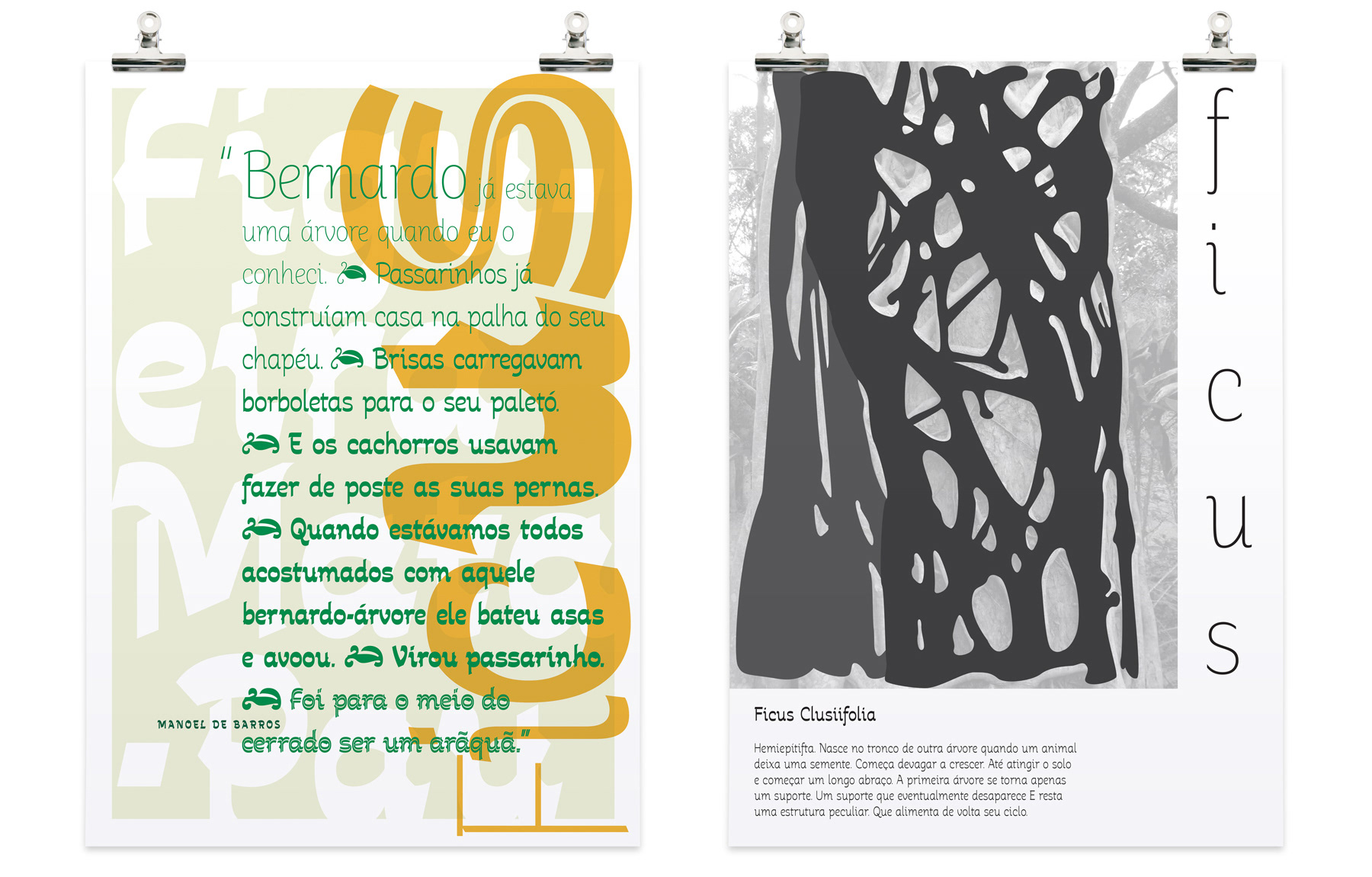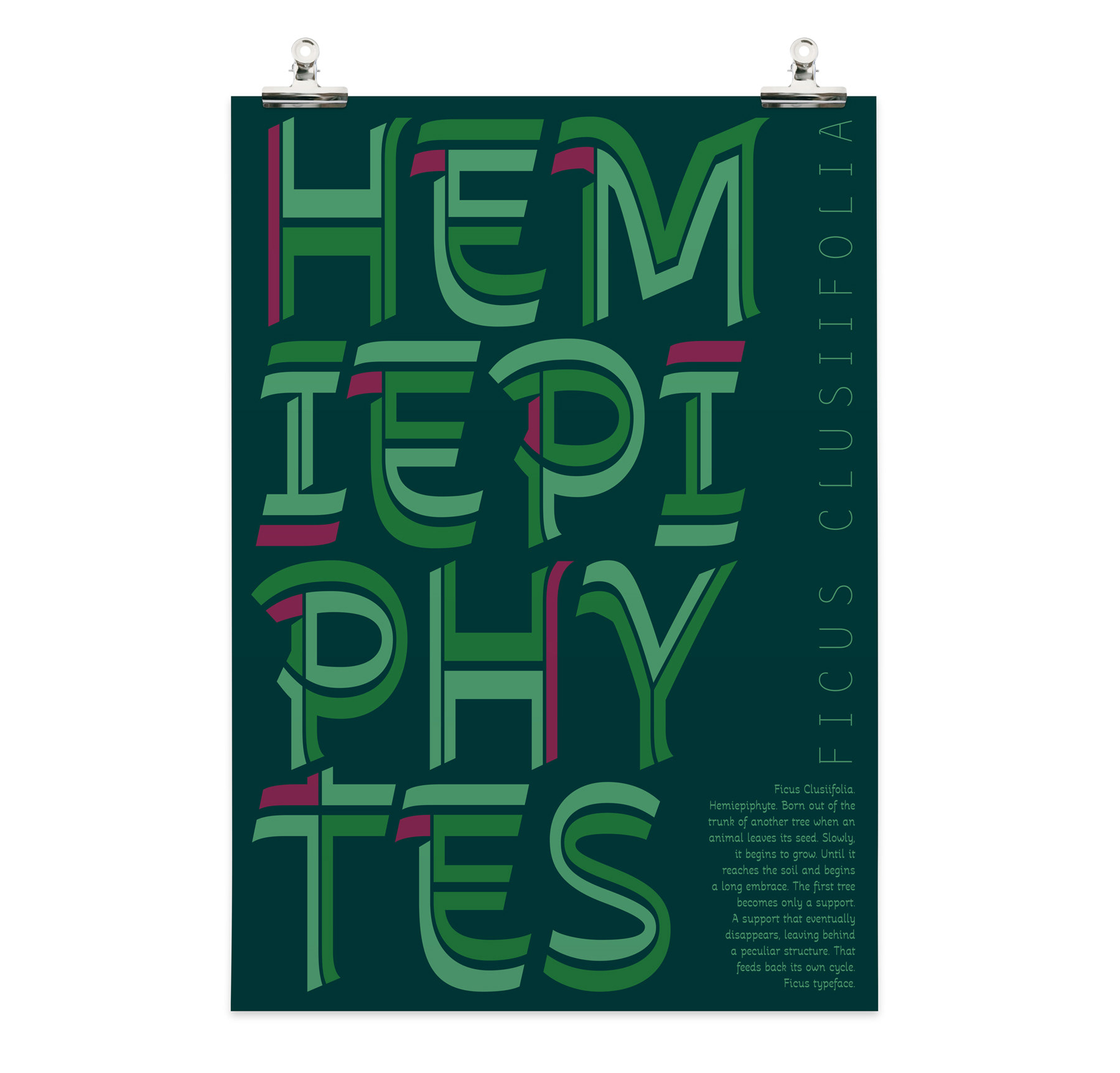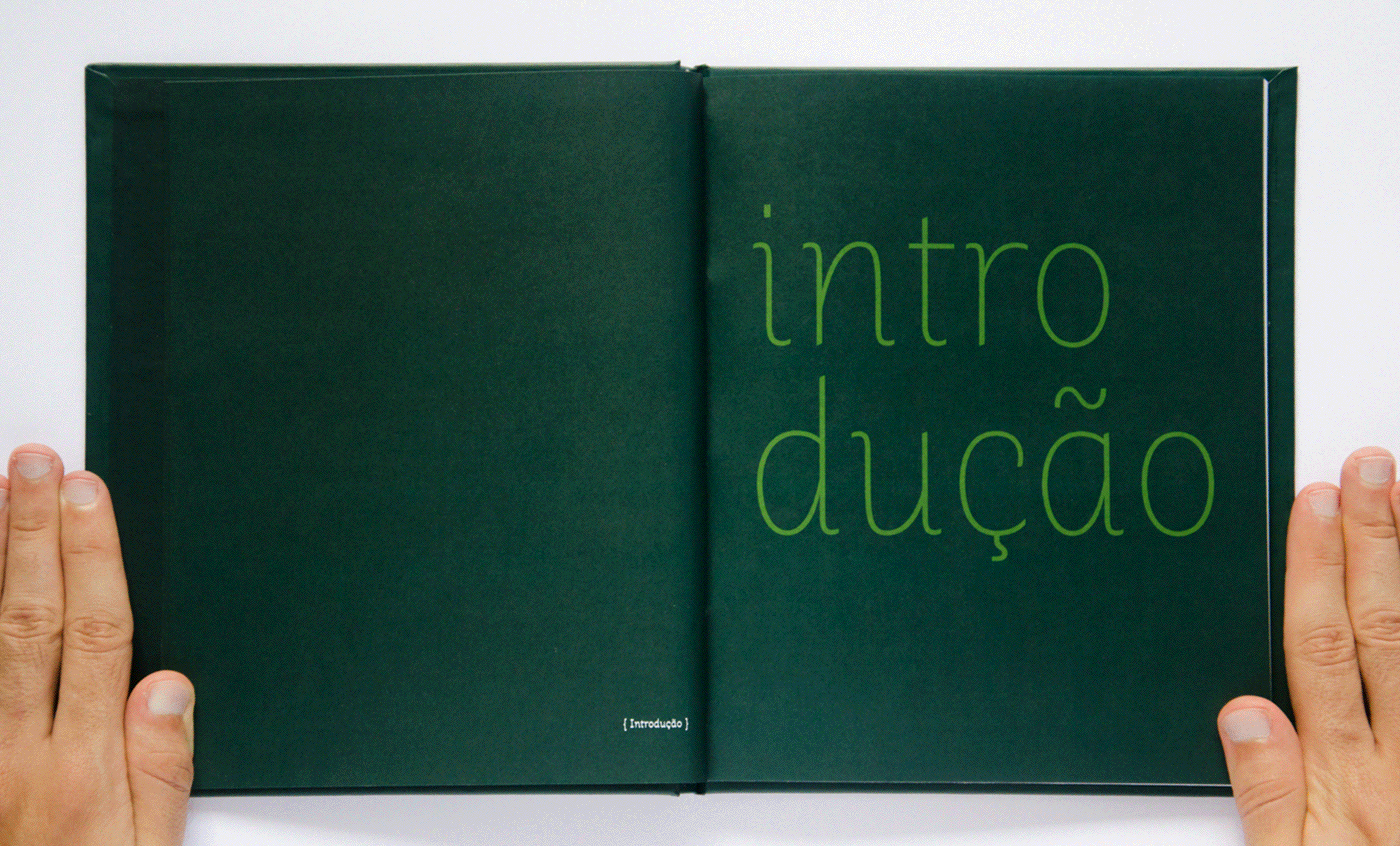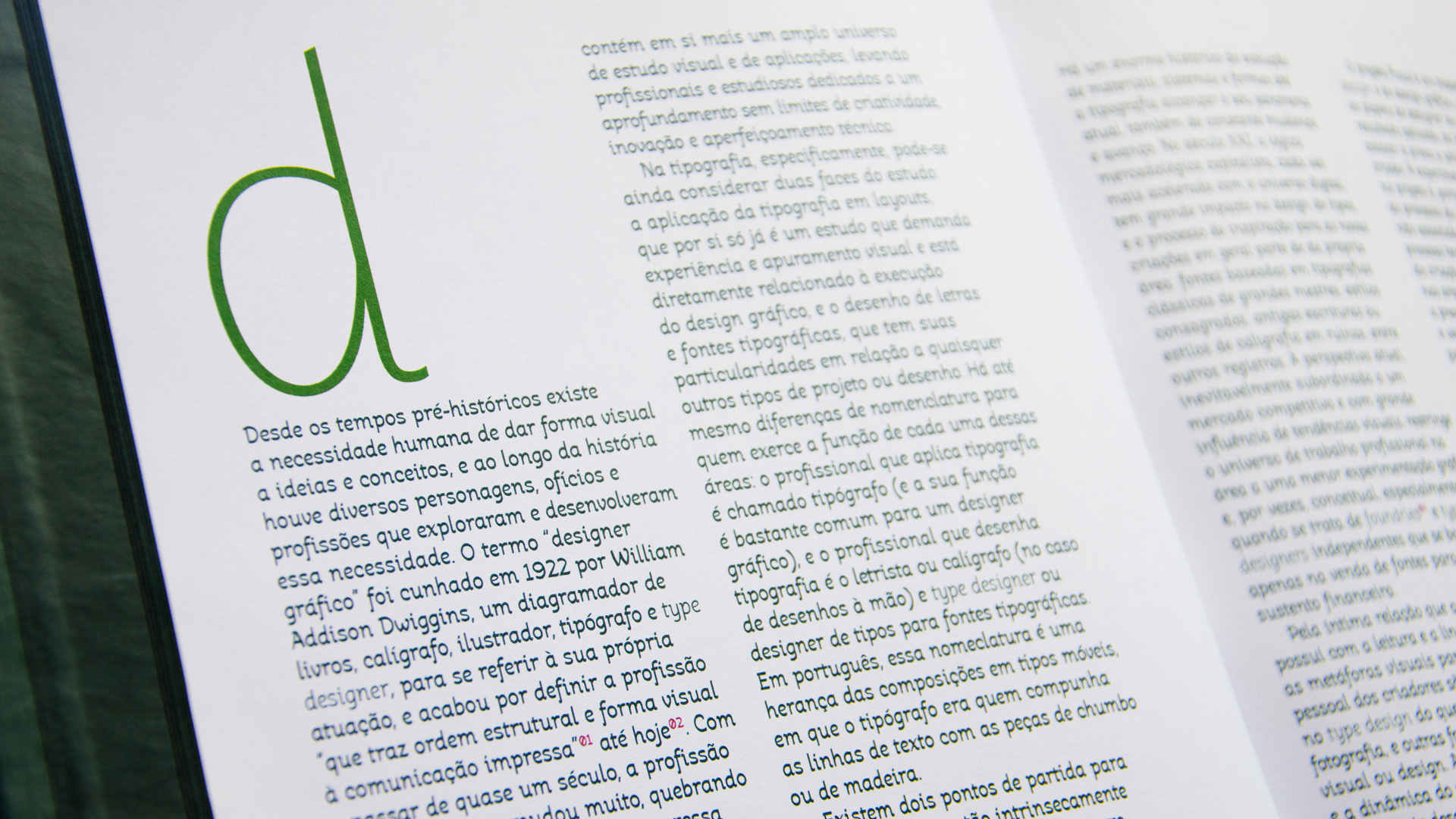
Ficus is a type design project whose output is
a typeface family of 7 weights dedicated to the growing process
of the Figueira Mata-Pau tree, in the brazilian Pantanal.
It's been selected as one of the top 500 graphic design
(and top 24 type design related) projects between 2015 and 2016 in Brazil.
The process is the following: basically, the Figueira Mata-Pau (Ficus Clusiifolia)
starts growing in another tree's trunk, after an animal leaves its seed.
And it slowly grows without any harm. Until its roots, that were growing
in the air, reach the soil and the plant begins a long embrace to the initial
tree trunk. After some time, the first tree dies, and becomes only
a support to the Figueira. A support that eventually disappears, rotting out,
and leaves behind a peculiar structure with a gap inside. This structure
is a great home to several animals, and so the cycle is completed.
Each weight of the Ficus typeface represents stages of this growing plant,
as it gets bolder, gains inverted contrast, becomes stranger, more complex and unusual.
The stages are finally done when it gets to an Inline weight, that represents
the gap that first tree leaves after rotting inside the Figueira.
A comparasing between the plant and the typeface makes the design inspiration more clear to every stage of the process.
Some key charaters that has a lot of transformations through the weights (including the contrast, cuts in the endings, counterforms, curves, width, the form of diacritics, and even the thorns that show up).
The complete character set of Ficus has 215 glyphs on each weight, including one set of numbers (lining figures), math signs, punctuation, diacritics for spanish and portuguese, some ligatures (ff, fi, fl, œ and Œ) and one fleuron.
The fleuron had a special part in this project, because it's originally inspired by an european plant, and in this font, it also inspired by a brazilian one – the Figueira Mata-Pau.
As a graduation project, it also had an extensive research and the book
with the full texts about the project was entirely composed and printed using Ficus.
In a final stage of this project, I created 3 posters on my own, and asked friends
designers to do the same, and give their interpretations of the font's possibilities too.
1st poster designed by me
Other posters designed by me
Posters designed by Crystian Cruz and Vitor Inoue
Posters designed by Mariana Louro and Shingo Sato
Posters designed by Rodolfo França and Amanda Louisi
Posters designed by Nelson Urssi and Renan Quevedo